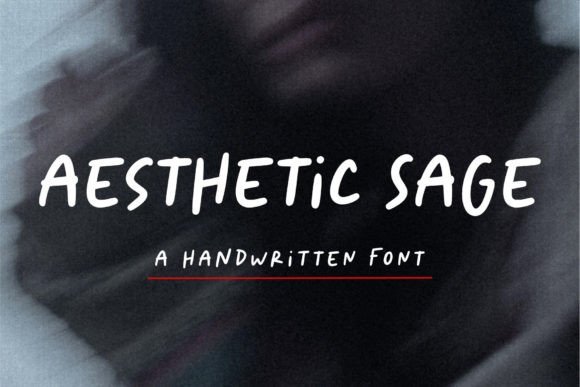
Unleash Your Creativity with Aesthetic Sage Font
Have you ever been brainstorming a new project, surrounded by scattered papers, colorful pens, and a warm cup of coffee? That’s when the magic happens, and your ideas start flowing. You’re on a roll, and nothing can stop you. But, what if you had the perfect tool to take your creativity to the next level? Enter Aesthetic Sage Font, a beautiful handwritten font designed to bring your ideas to life.
Aesthetic Sage Font is more than just a font – it’s a way to express yourself authentically. With its natural, handwritten feel, it’s perfect for crafts, digital design, presentations, and even making greeting cards. Whether you’re a seasoned designer or a DIY enthusiast, this font has the potential to become your go-to companion for any creative project.
Aesthetic Sage Font Key Features
- Font Family: Aesthetic Sage is a modern sans-serif font family, designed for a wide range of applications, including digital and print media.
- Character Count: The Aesthetic Sage font family includes over 800 glyphs, covering a wide range of languages and characters.
- Unique Characteristics: Aesthetic Sage features a unique blend of geometric and organic elements, creating a distinctive and modern aesthetic.
- Font Style Variations: Includes 6 font styles: Light, Regular, Medium, Bold, Extra Bold, and Black, providing versatility for various design applications.
Aesthetic Sage Font Review
Overall, I’m quite impressed with the Aesthetic Sage Font. ✨ The design team has done a great job of creating a unique and visually appealing typeface that’s perfect for modern designs. The font’s soft, rounded edges and gentle curves give it a calming effect that’s sure to delight users.
The font’s versatility is also a major plus. ✨ It works well in both headings and body text, making it a great choice for a wide range of applications. The font’s subtle texture and subtle color variations add depth and visual interest, making it a great choice for designs that need a bit of extra flair.
While the Aesthetic Sage Font is a great choice for many designs, there are a few limitations to be aware of: ⚠️ The font may not be the best choice for designs that require a lot of bold, attention-grabbing text. The font’s soft, subtle design may get lost in larger text sizes. Additionally, the font may not be suitable for designs that require a lot of technical or scientific text.
- Unique, modern design
- Soft, rounded edges and gentle curves
- Subtle texture and color variations
- Works well in headings and body text
- Great choice for modern designs and branding
In conclusion, the Aesthetic Sage Font is a solid choice for designers looking for a unique and visually appealing typeface. While it may not be the best choice for every design, its versatility and subtle charm make it a great addition to any designer’s toolkit.